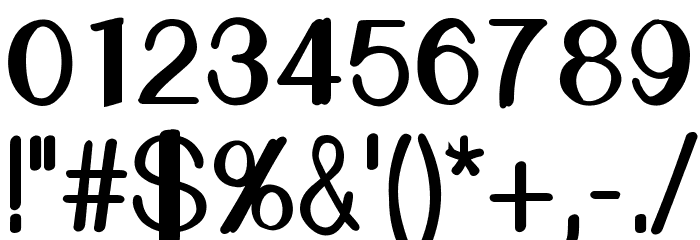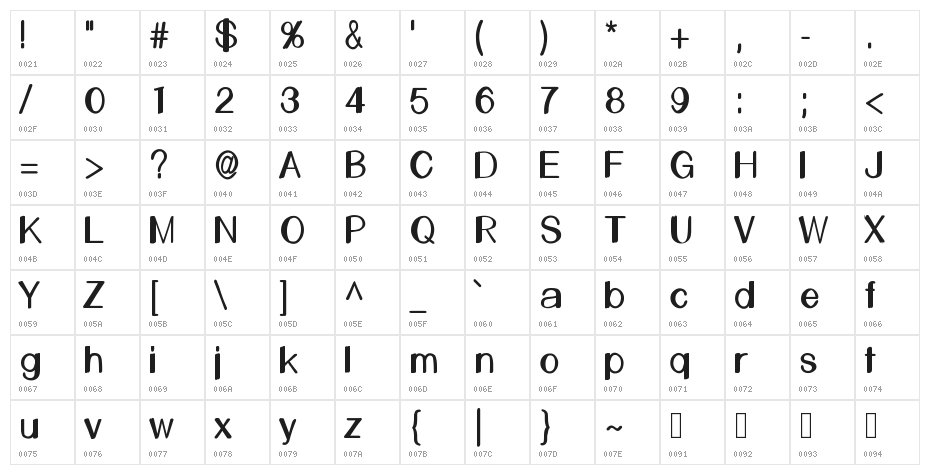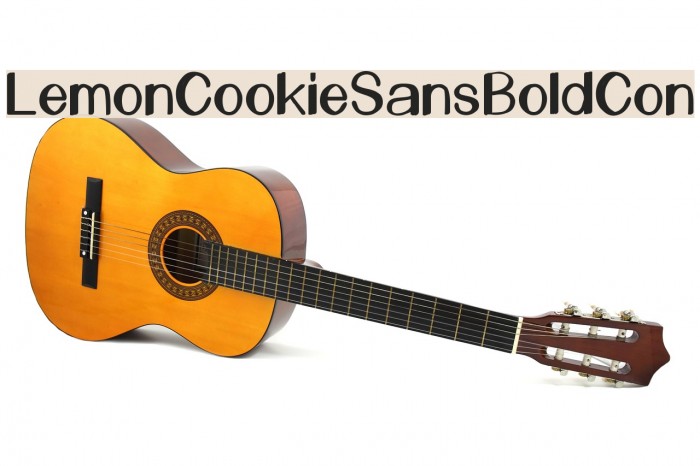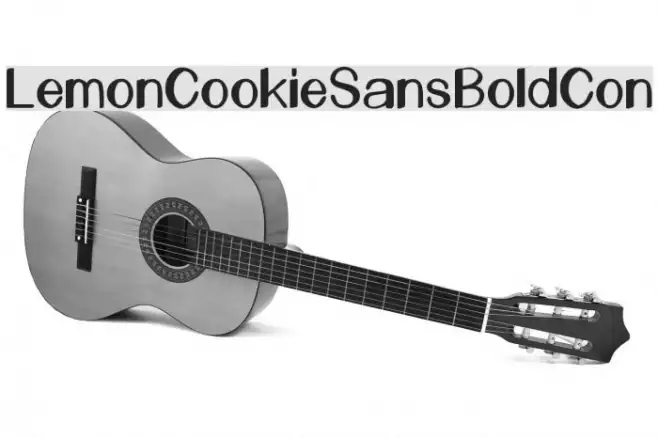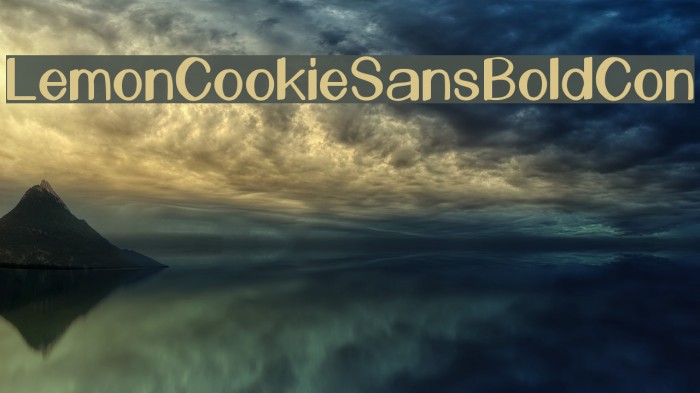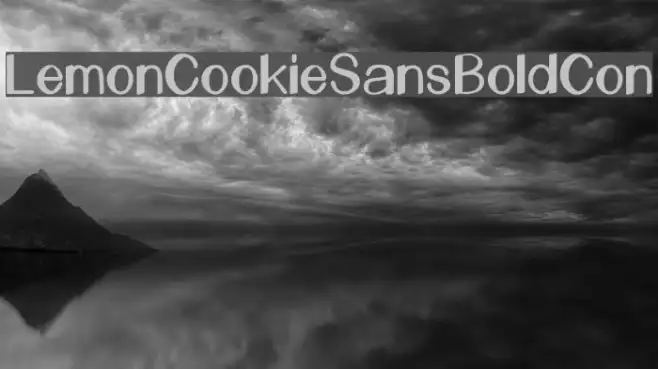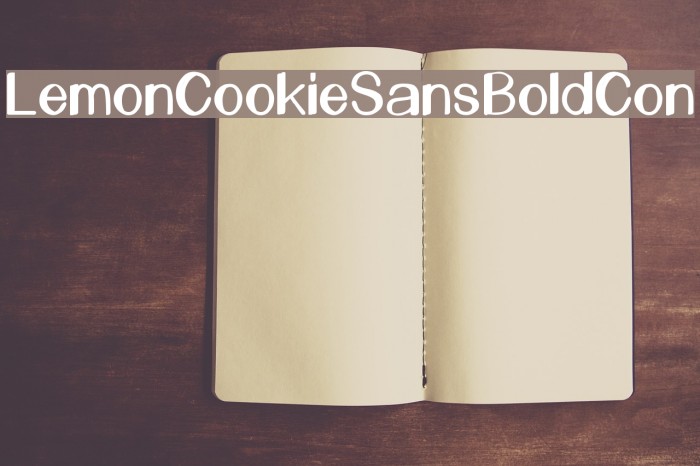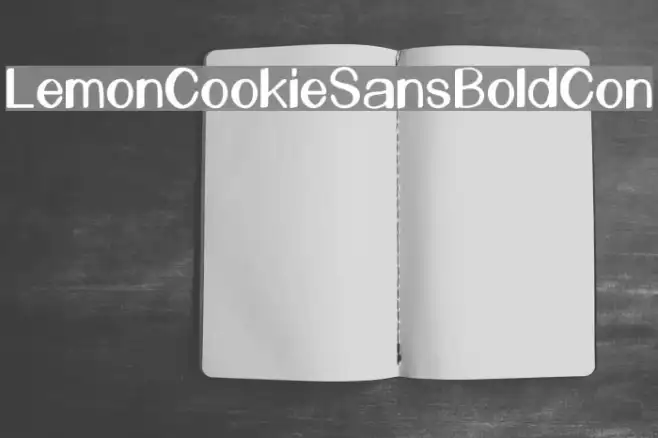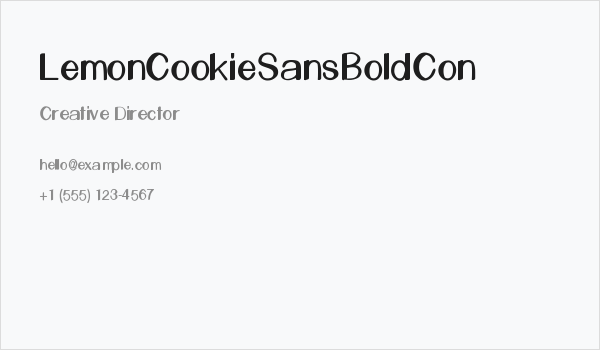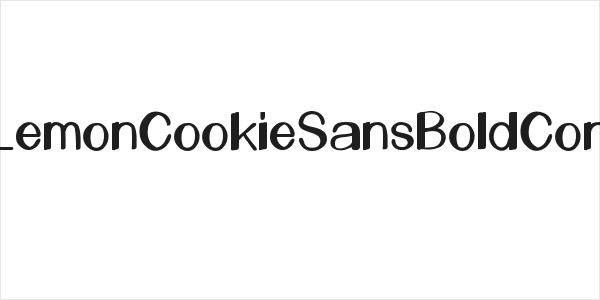
LemonCookieSansBoldCon Font
LemonCookieSansBoldCon Description
This font features a bold and playful design with rounded edges and a friendly appearance. The uppercase letters are slightly taller than the lowercase, providing a nice contrast and balance. The characters are well-proportioned, with a consistent stroke width that adds to its readability. The numerals and special characters maintain the same playful style, making it suitable for a variety of uses. Its boldness ensures that it stands out, while the rounded shapes give it a soft, approachable feel.
| Proposed Projects | Ideal for children's books, playful branding, casual invitations, and social media graphics. |